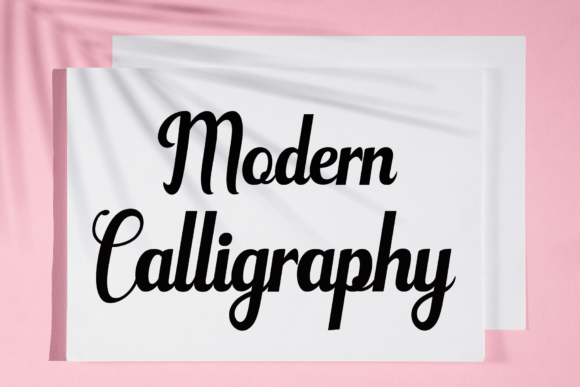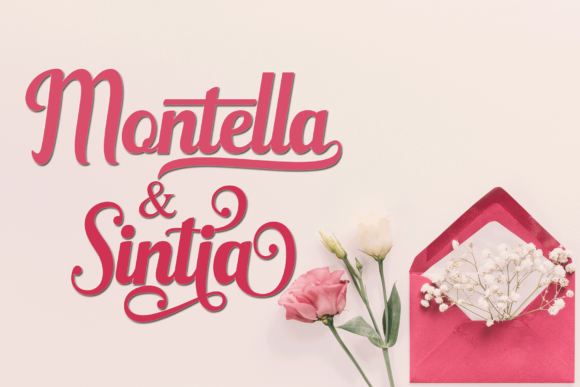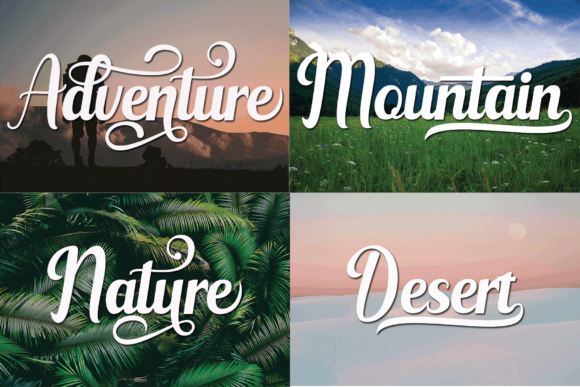
Introduction to Sintia Sattia Font
Sintia Sattia is an amazing handmade script font created in freestyle for those who do work and crafts.
It’s perfect for logos, wedding invitations, headings, t-shirts, letterheads, signage, labels, news, posters, badges, etc .